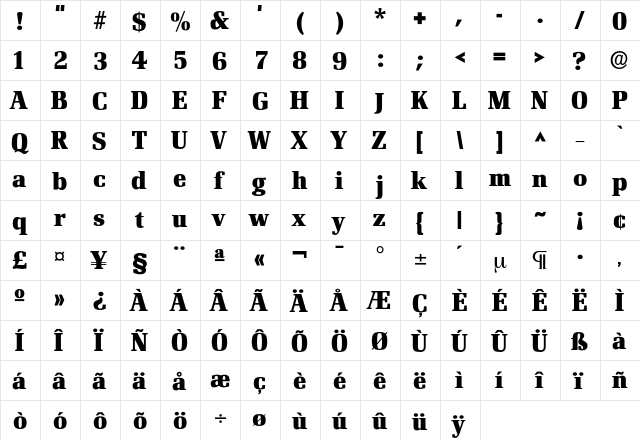
FrenchcarDemiBold Regular
Design Context for FrenchcarDemiBold Typeface
FrenchcarDemiBold takes a measured approach to typography — its balanced proportions and neutral character make it a reliable workhorse for both digital and print work. Its bold stroke weight gives it real presence on the page.